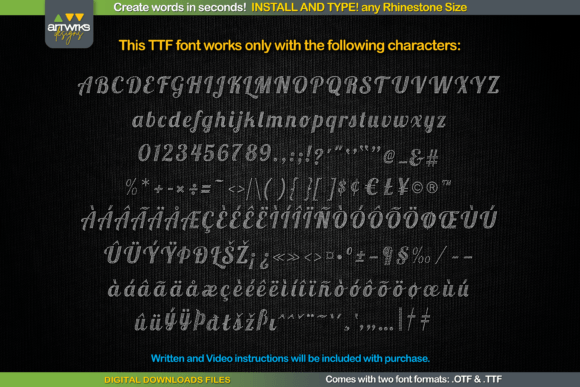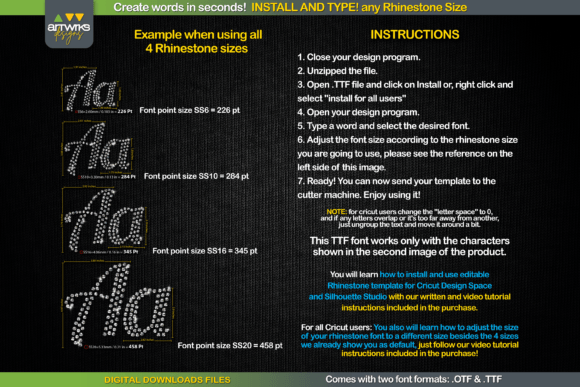
Unlock Endless Possibilities with Forever Font
As a creative, you know that spark of inspiration that hits when you least expect it. It’s the moment when a blank canvas transforms into a masterpiece, and the words start flowing. For me, it’s the thrill of designing something unique that brings a smile to someone’s face. But let’s be honest, finding the perfect font can be a challenge. That’s why I’m excited to share with you a game-changer: Forever Font, a stunning script font that will revolutionize your designs.
Forever Font is a custom Rhinestone template font that makes it easy to create beautiful, rhinestone-filled words in seconds. Whether you’re a seasoned designer or just starting out, this font is a valuable addition to your toolkit. With Forever Font, you can customize your designs with text, and the best part? Each letter is perfectly filled with rhinestones or arranged for heat transfer vinyl, saving you time and effort.
- Unique characteristic: Custom-designed ligatures and contextual alternates, adding a touch of elegance and sophistication to text-based designs.
Designer Review: Forever Font
Overall, Forever Font is a solid addition to any designer’s toolkit. Here’s what works well: ✨ It’s incredibly versatile, suitable for a wide range of projects from logos to body text. The font is elegant and sophisticated, making it perfect for high-end branding or publishing projects. Additionally, it’s relatively easy to pair with other fonts, allowing for a high degree of customization.
- Highly versatile and suitable for a wide range of projects
- Elegant and sophisticated design
- Relatively easy to pair with other fonts
- May not be ideal for bold or edgy projects
- Some characters may not be compatible with certain operating systems or software